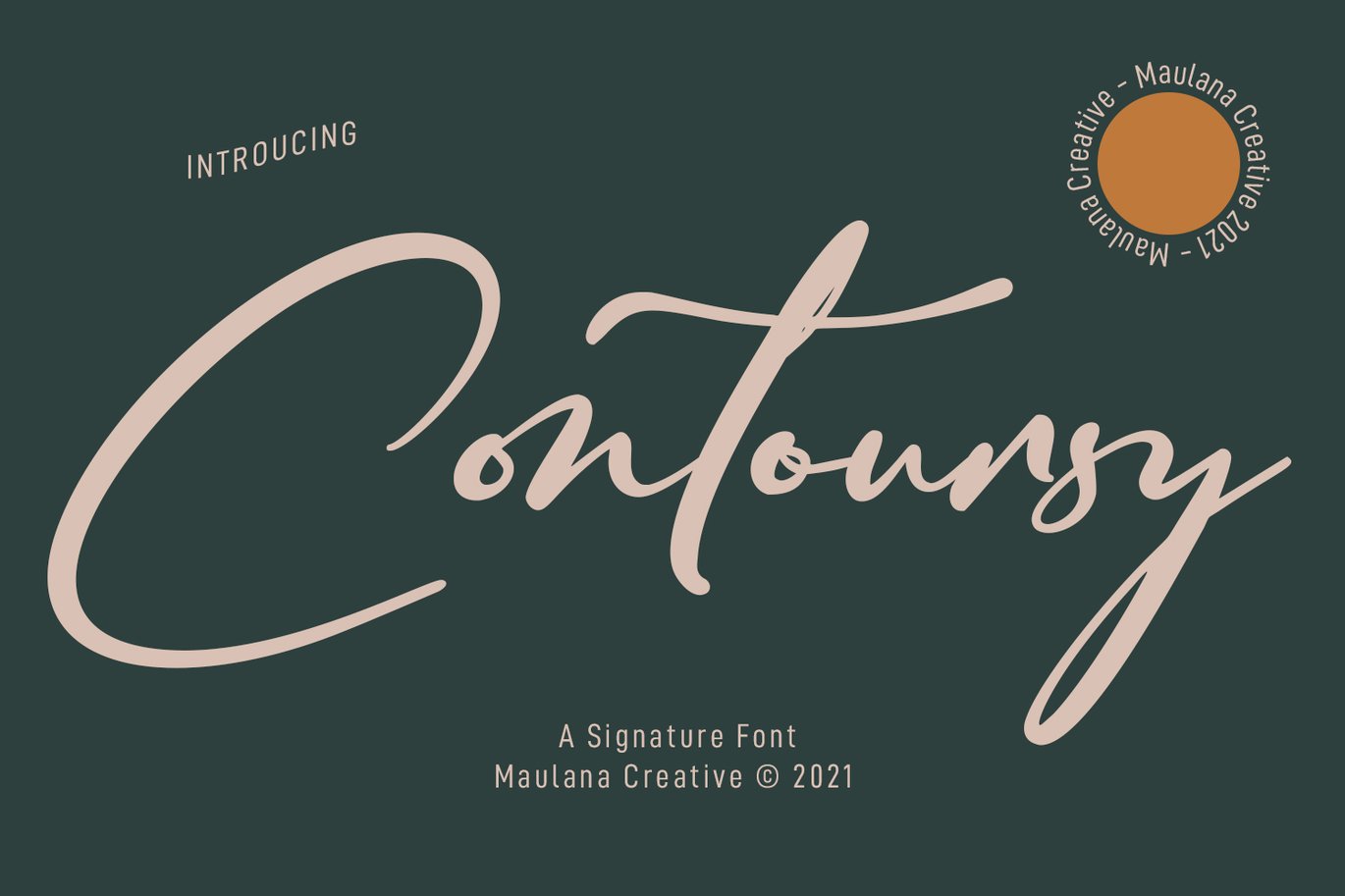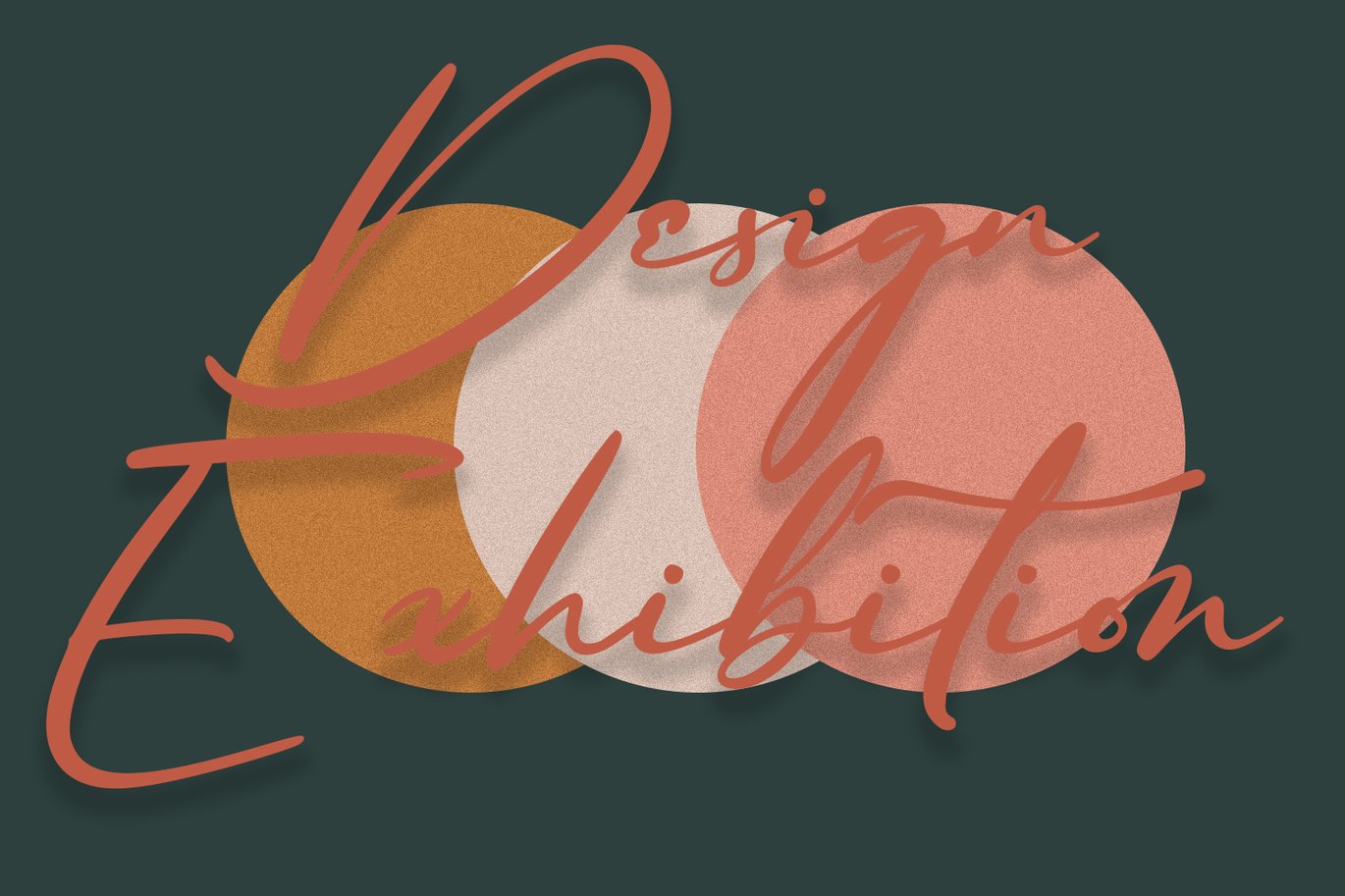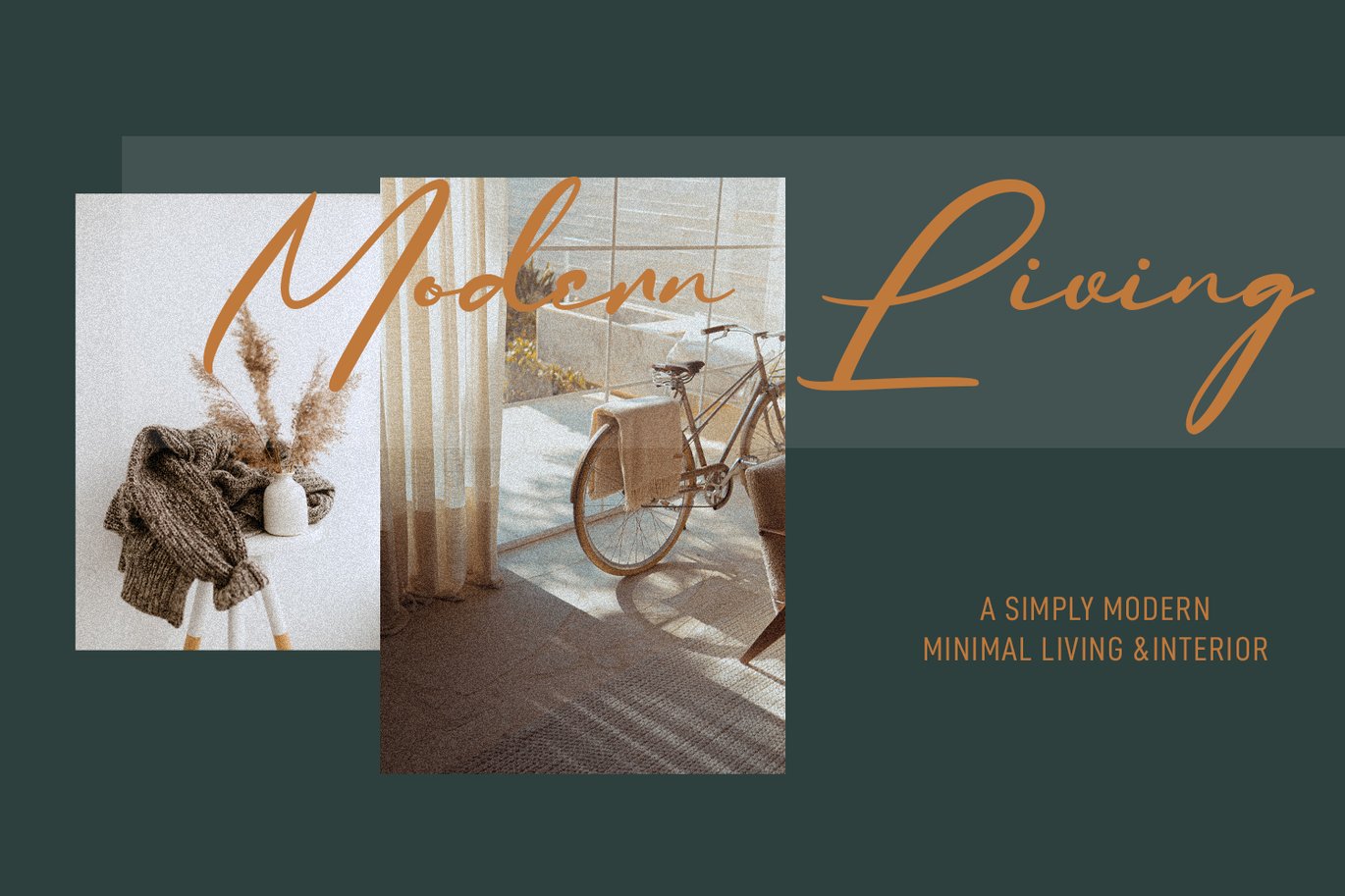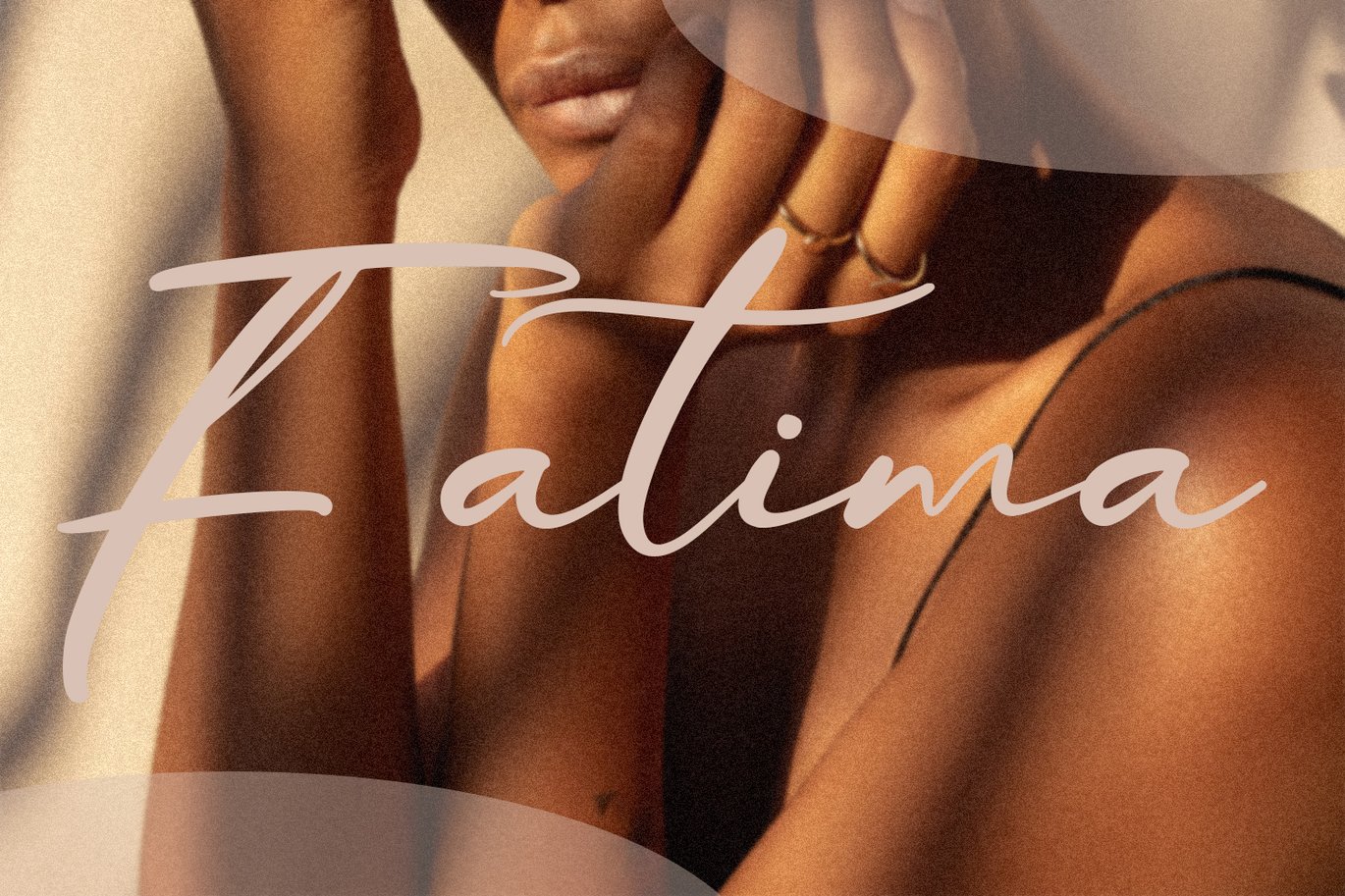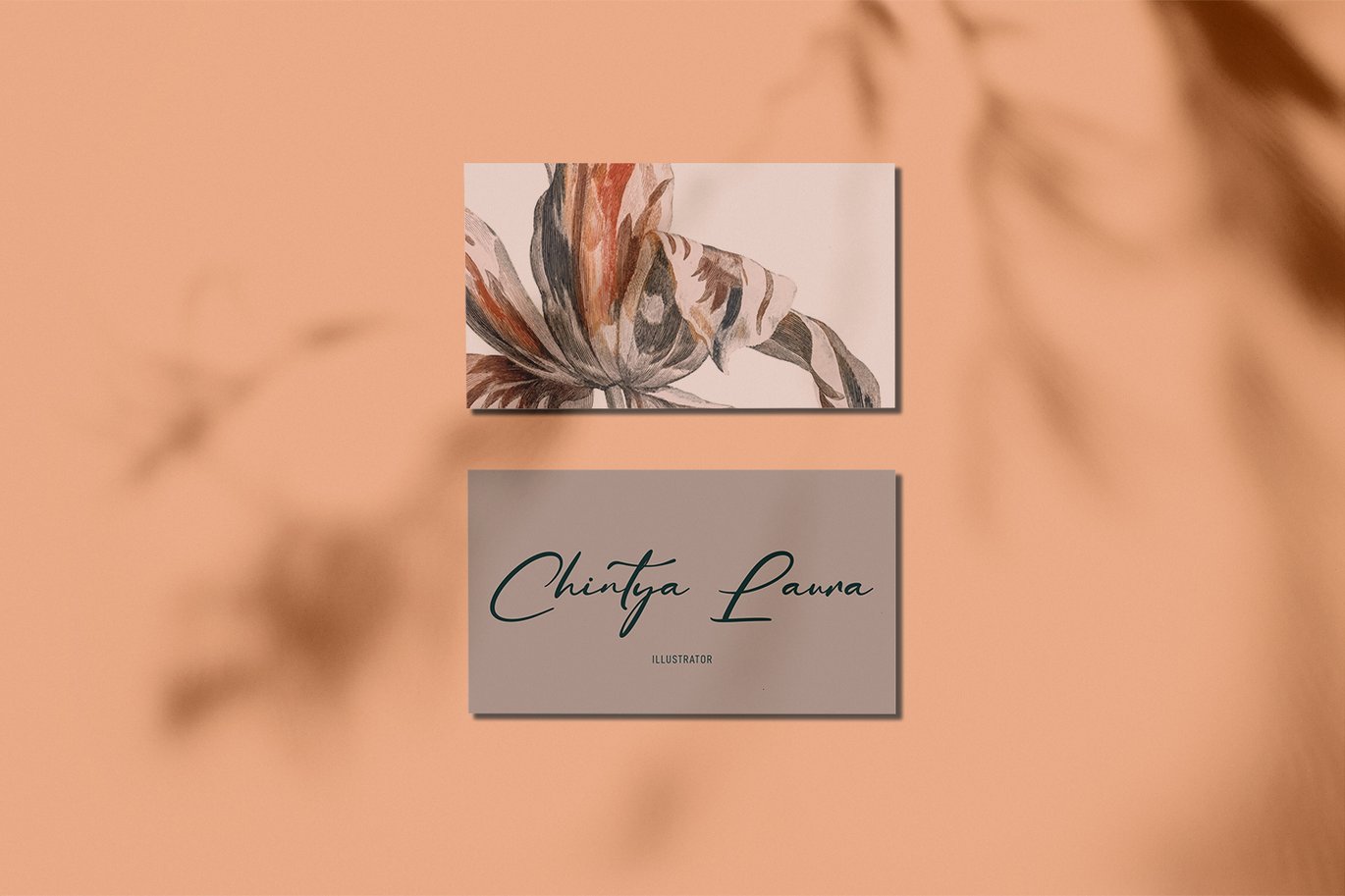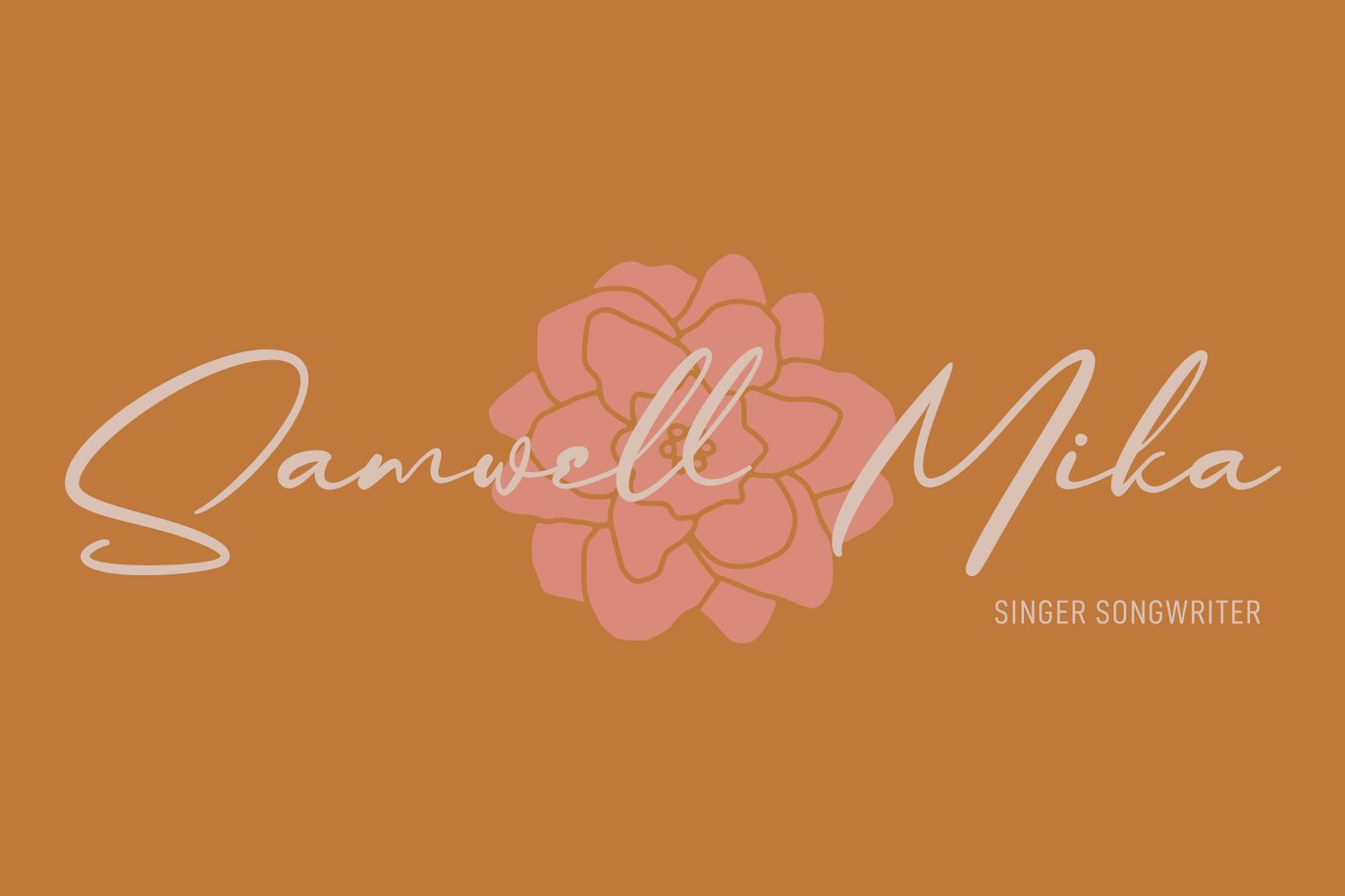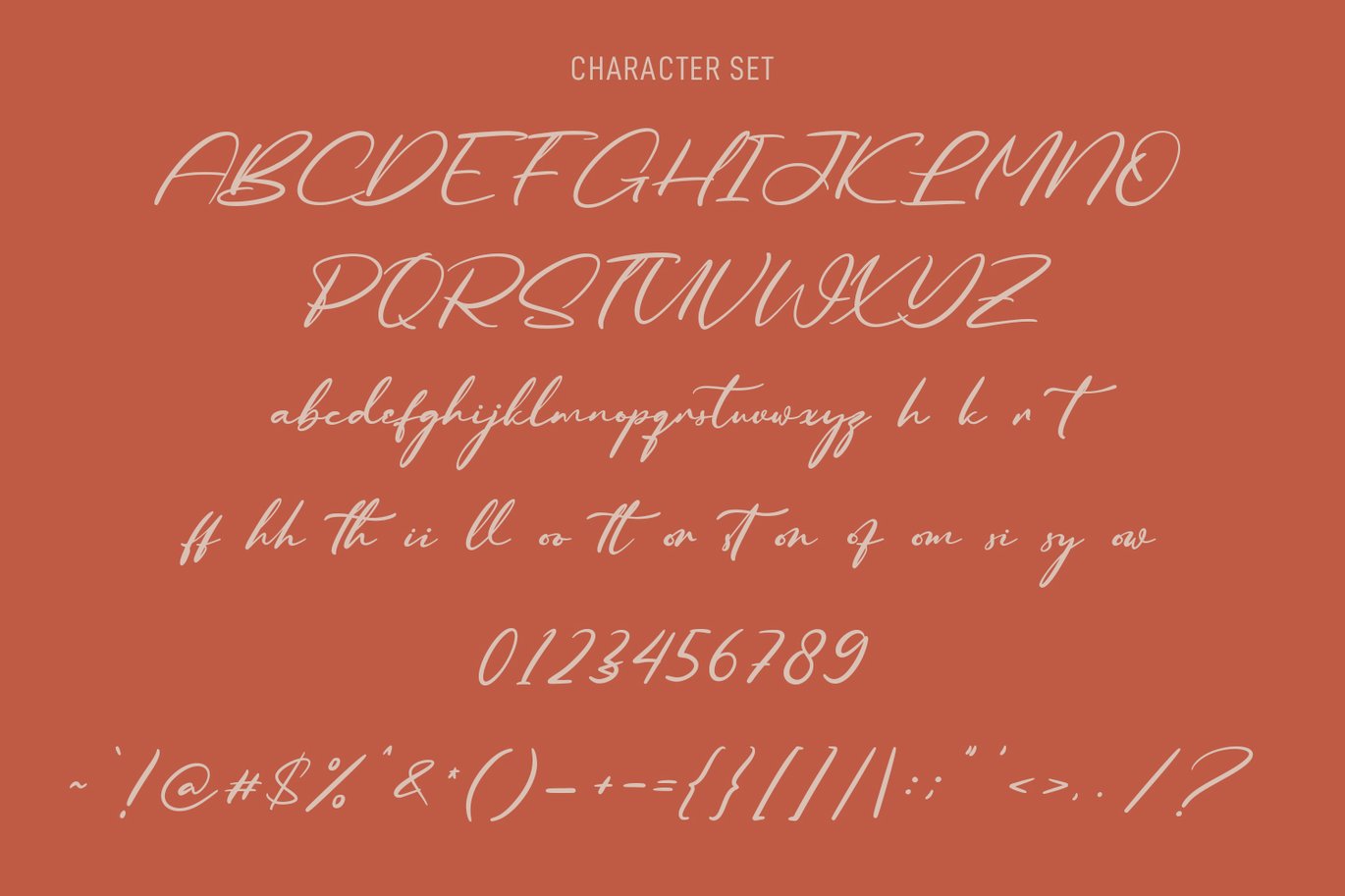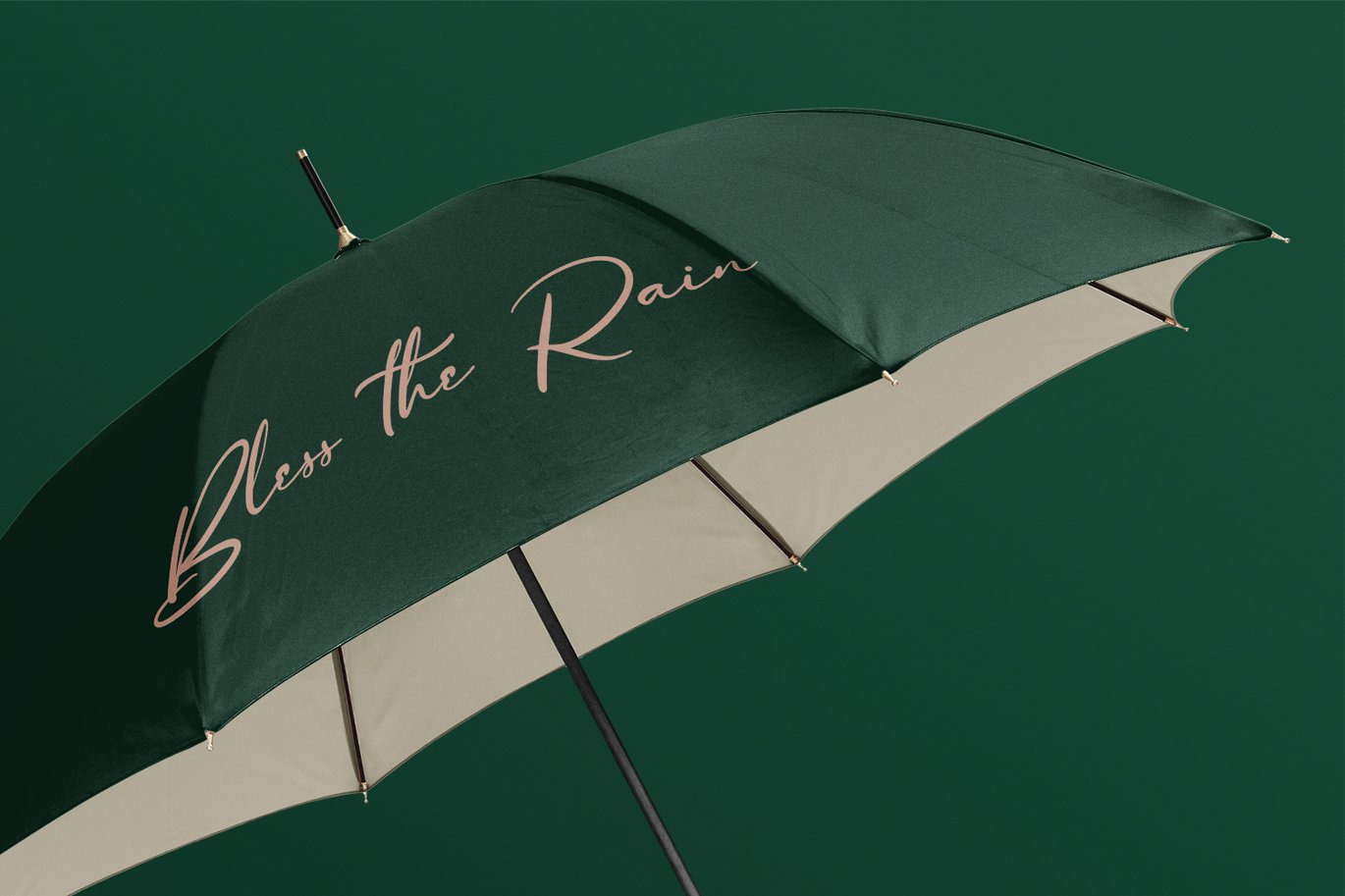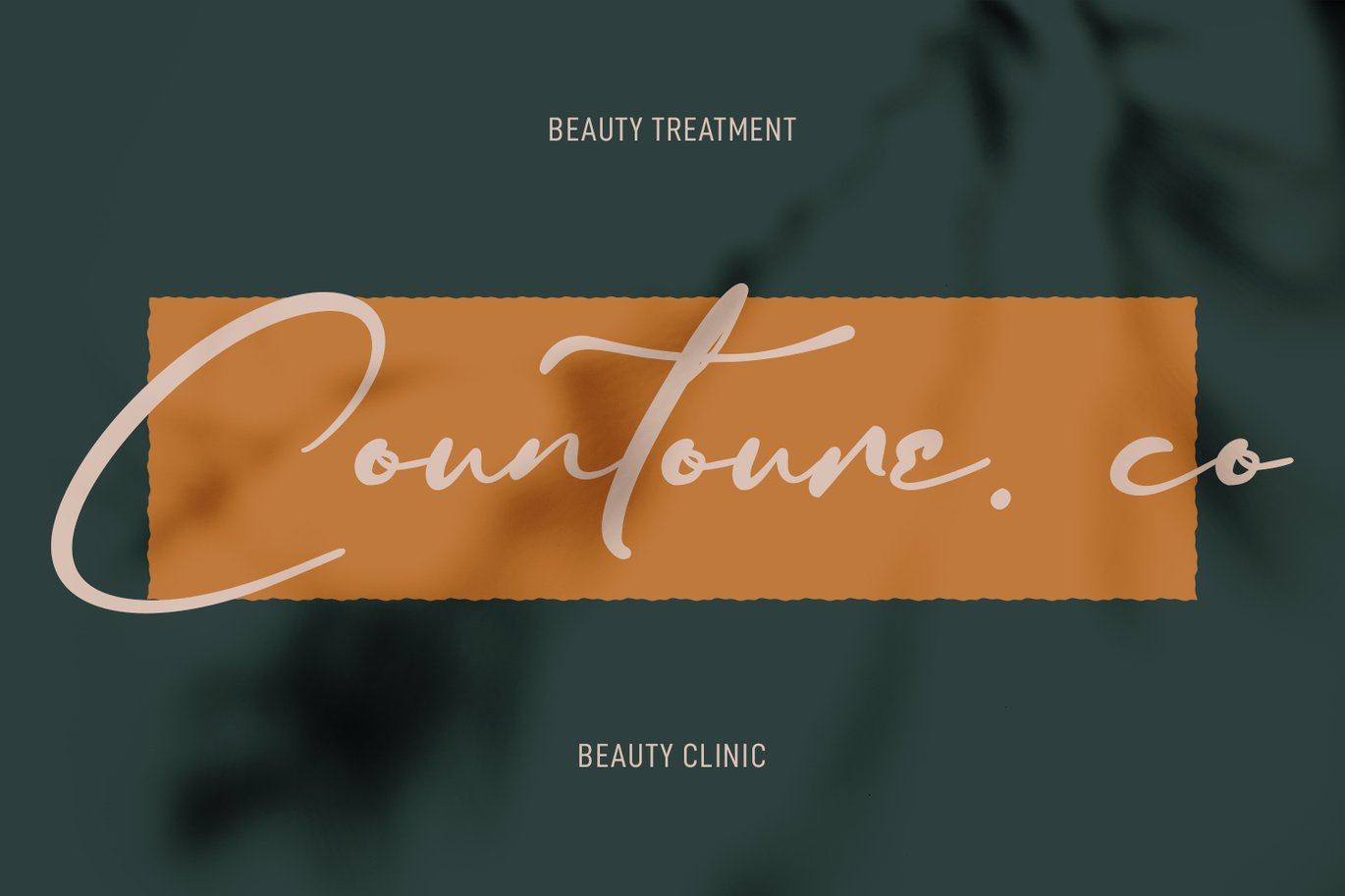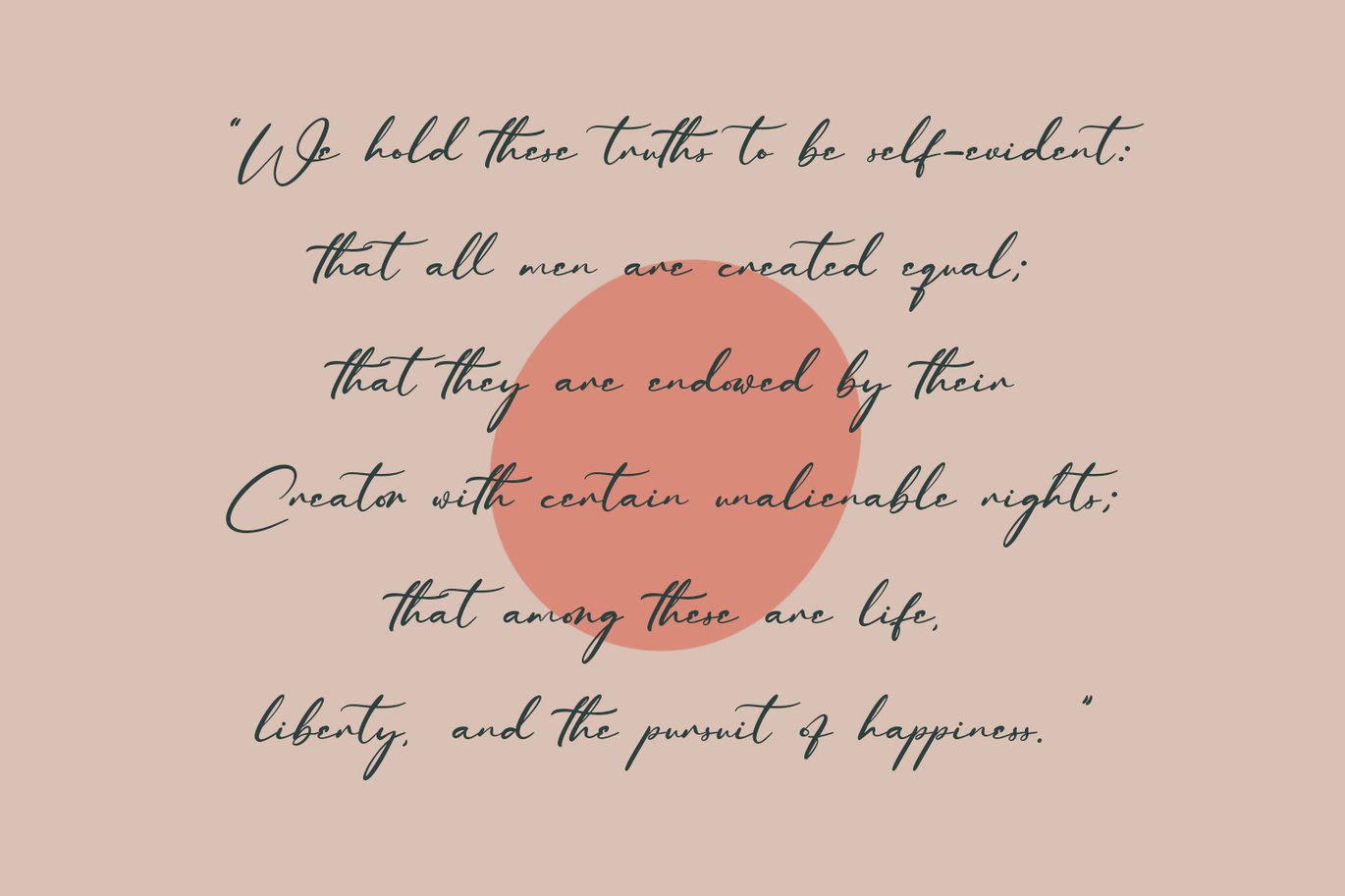
Contoursy Signature Font
Contoursy is a Fancy Signature script font. With light stroke, slanted and fun character with a bit of ligatures and a bit lowercase alternatives. To give you an extra creative work. Contoursy font support multilingual more than 100+ language. This font is good for logo design, Social media, Movie Titles, Books Titles, a short text even a long text letter and good for your secondary text font with sans or serif. Make a stunning work with Contoursy font.